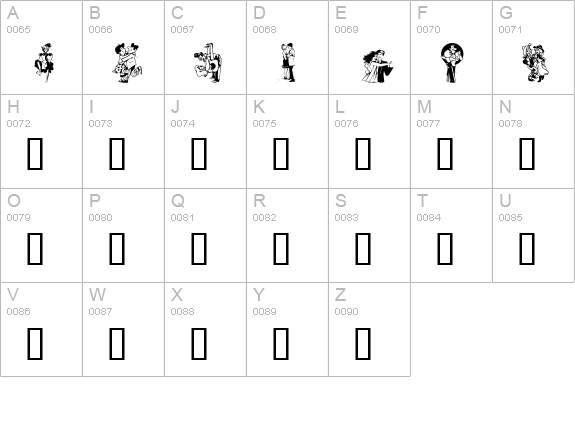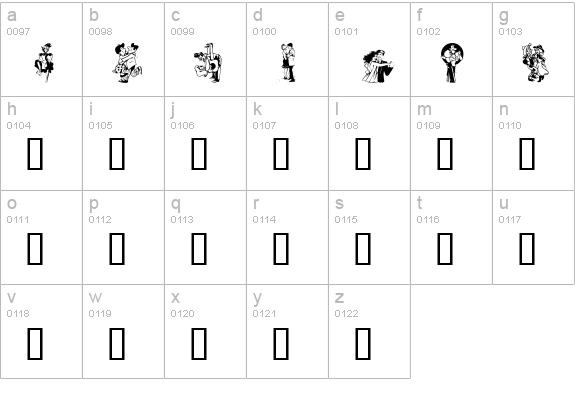
KR Kick Up Your Heels Font Details
Introducing KR Kick Up Your Heels font - a whimsical and playful typeface that exudes charm and personality. With its unique hand-drawn style and quirky flair, this font is perfect for adding a touch of fun to your designs. Whether you're creating invitations, posters, or social media graphics, KR Kick Up Your Heels font will surely make your text stand out. Best of all, KR Kick Up Your Heels font is available for free download at FontsMarket.com. This means you can easily access this delightful font and use it in your projects without any cost. So go ahead, download KR Kick Up Your Heels font today and let your creativity shine with this delightful typeface.